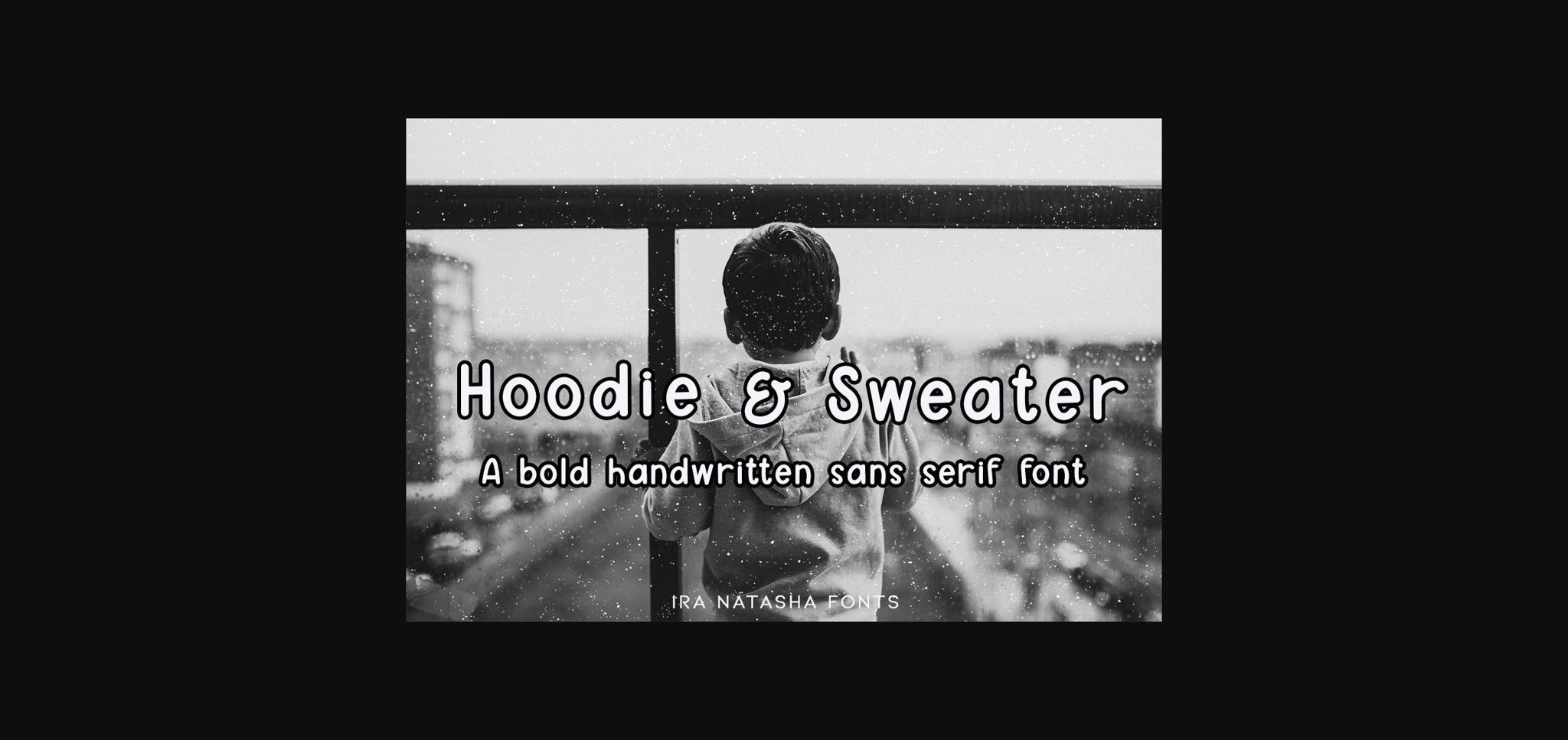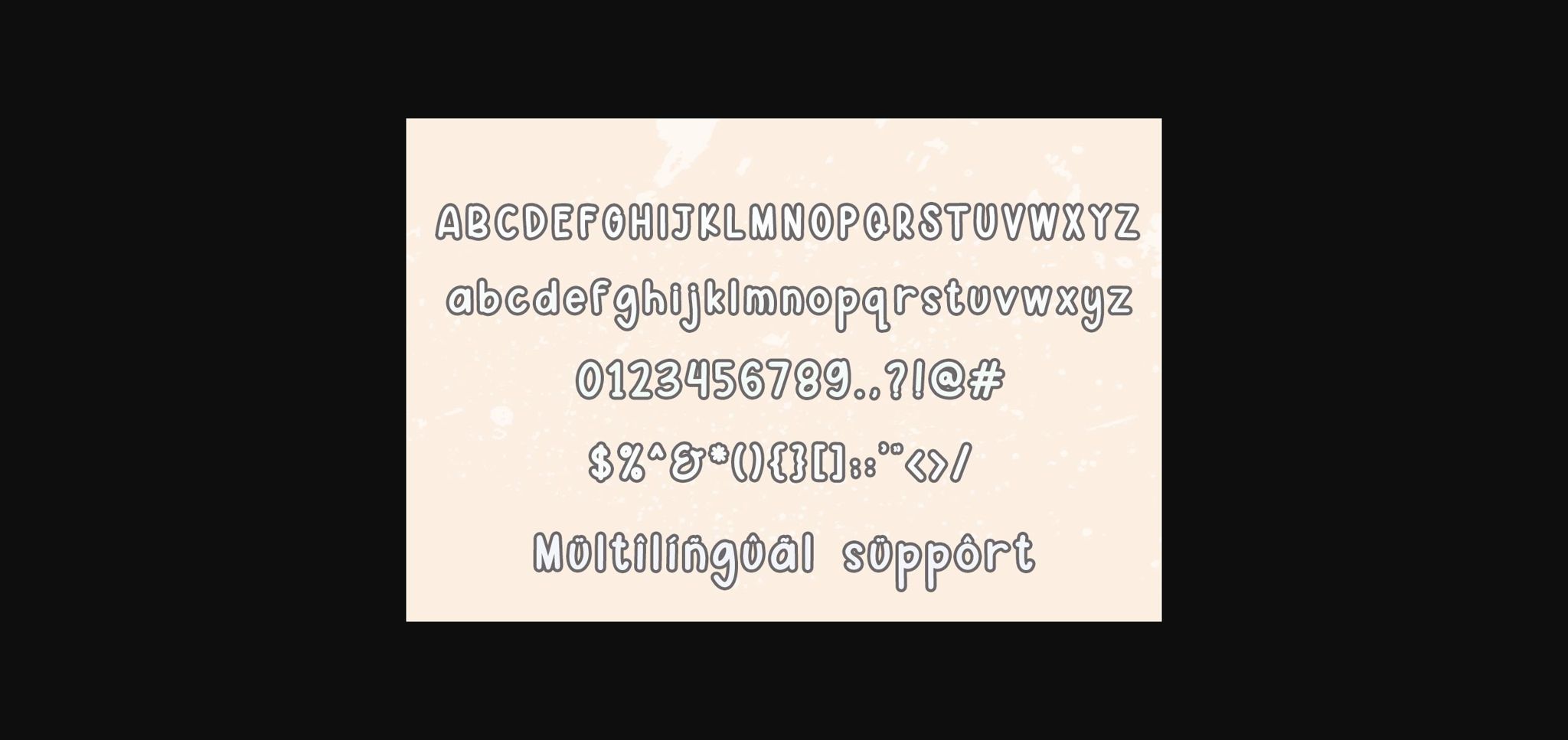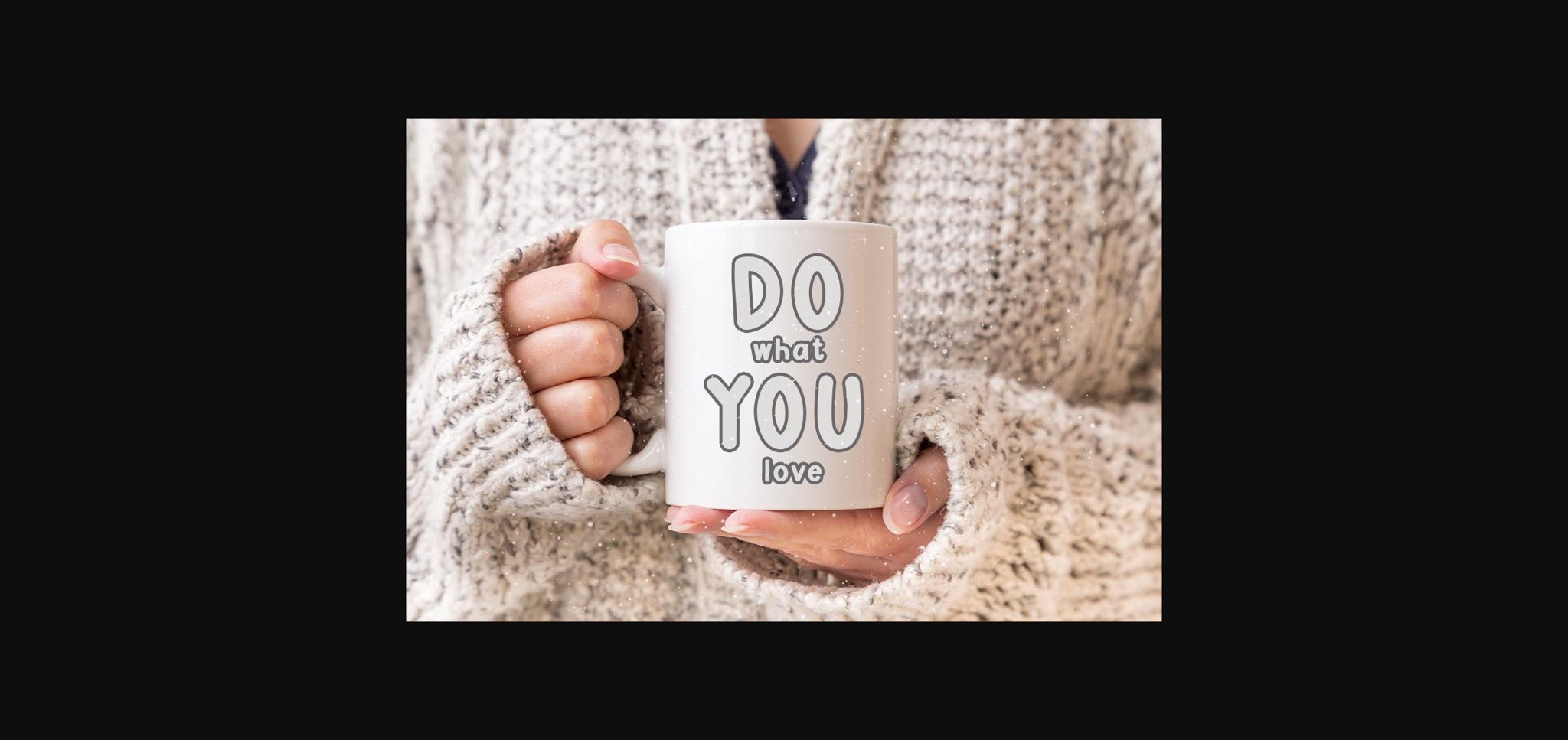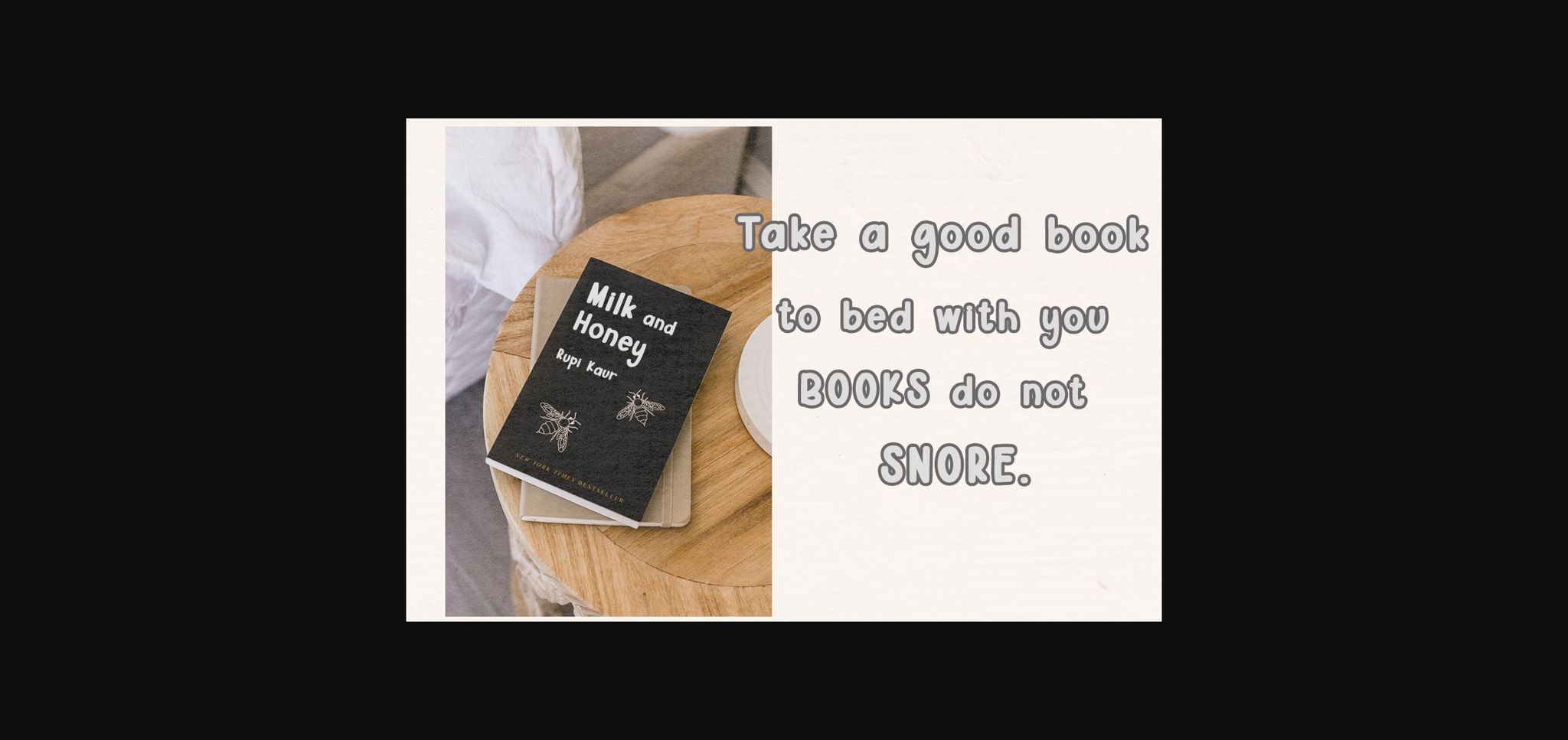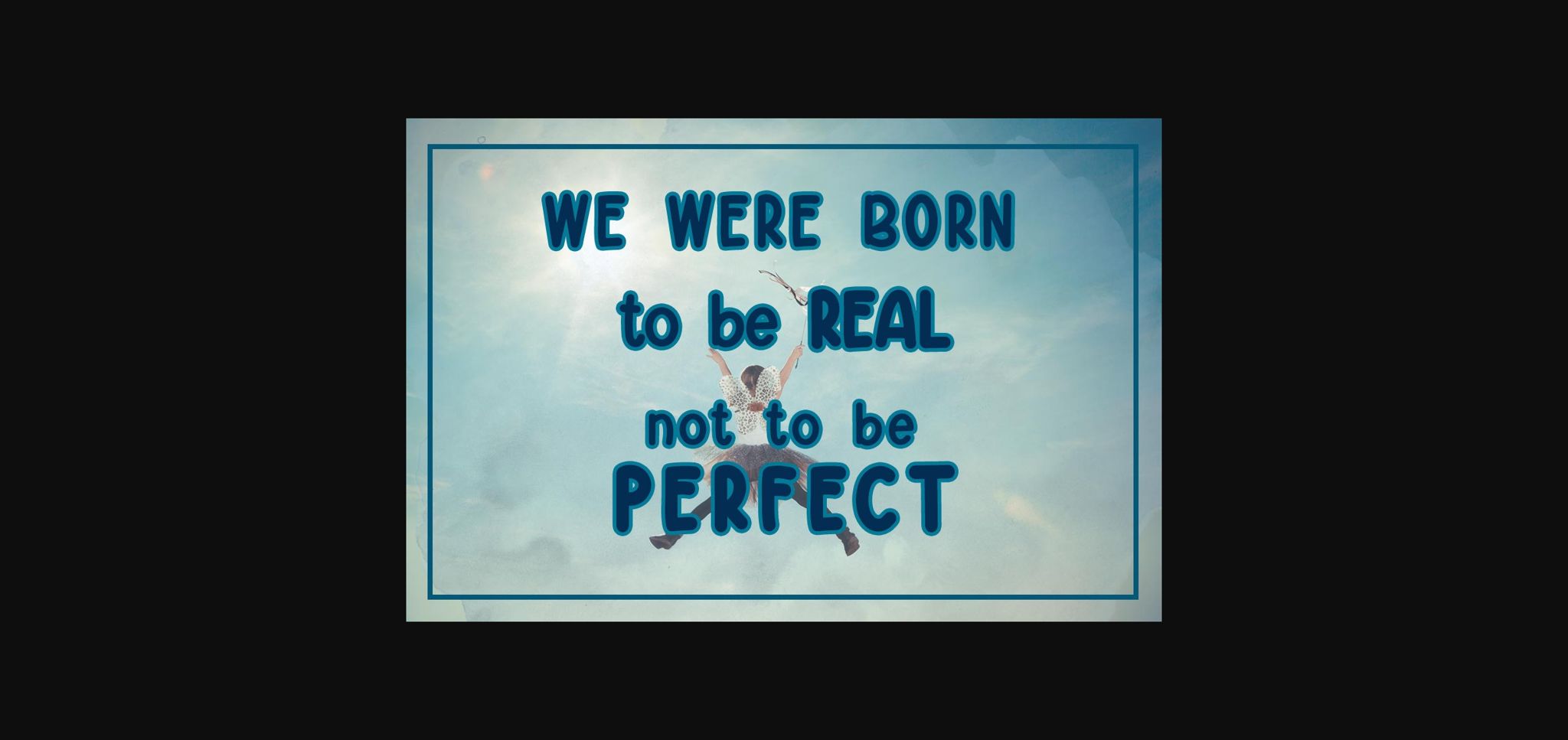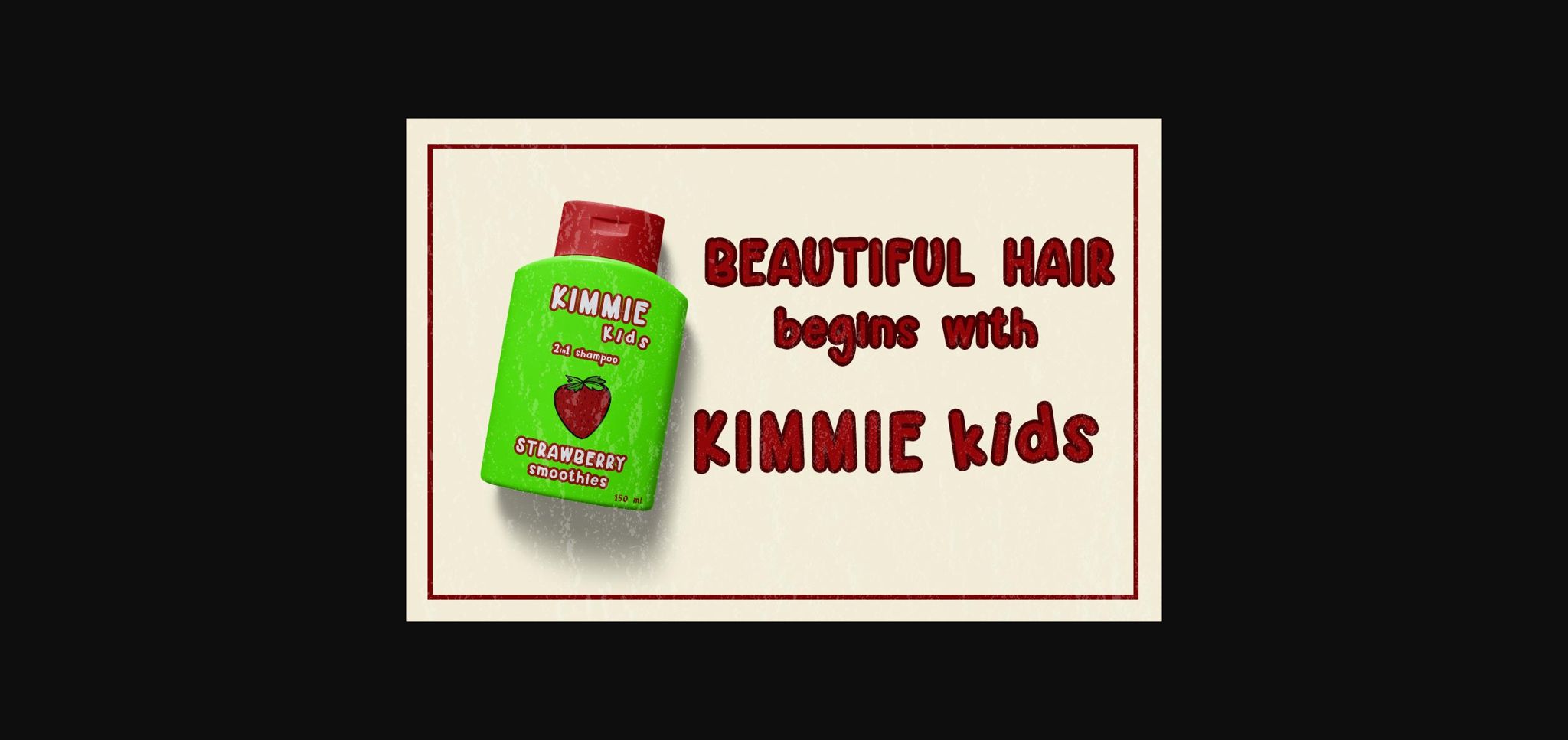
HomeSans Serif FontsHoodie & Sweater Font Sans Serif Fonts Hoodie & Sweater Font FacebookXPinterestWhatsApp 1 of 8 ... Hoodie & Sweater Font Poster 2... Hoodie & Sweater Font Poster 3... Hoodie & Sweater Font Poster 4... Hoodie & Sweater Font Poster 5... Hoodie & Sweater Font Poster 6... Hoodie & Sweater Font Poster 7... Hoodie & Sweater Font Poster 8... About Hoodie & Sweater Font Hoodie & Sweater is a sweet and simple sans serif font. It can easily be matched to an incredibly large set of projects, so add it to your creative ideas and notice how it makes them stand out! DOWNLOAD NOW People also explored Benoglow Font Messenger Pigeons Font Evening Twilight Font Simple October Font Spring Font Goola Kids Font Sugarskin BTN Selfilla Font Monogram Font 328 0 TagsHoodie & Sweater Font Previous articleSelembe FontNext articleHope Font LEAVE A REPLY Cancel reply Comment: Please enter your comment! Name:* Please enter your name here Email:* You have entered an incorrect email address! Please enter your email address here Website: Save my name, email, and website in this browser for the next time I comment. Personal Use Free Angelitta Personal Use Free Read more about this font Happy Garden Personal Use Free Read more about this font Thruster Personal Use Free Read more about this font New Normal Personal Use Free Read more about this font BLOG Using Fonts in Digital Marketing: Tips to Strengthen Your Brand Identity In the realm of digital marketing, every visual element plays a crucial role in shaping a brand's identity, and fonts are no exception. The... Exploring Font Trends Top 7 Google Fonts Alternatives for Faster and Privacy-Friendly Web Design (2025) How to Cut Any Font on Cricut: Convert a Font to SVG (Free)